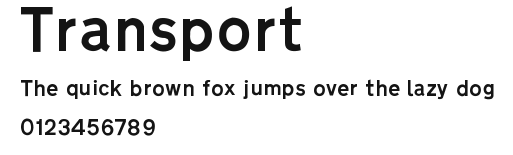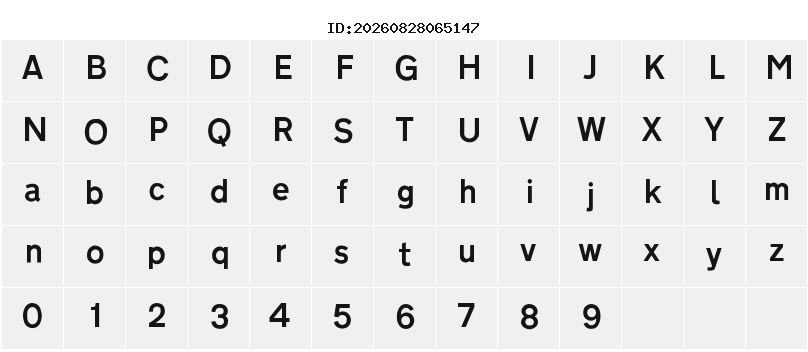
• Font Name: Transport
• Font ID: Transport Medium
• Full Font Name: Transport Medium
• Designer: High-Logic - Erwin Denissen 1999
• Manufacturer: High-Logic
About Transport.ttf
Transport.ttf is a modern, elegant sans-serif font designed for ultimate readability and visual harmony. Perfect for branding, headlines, web design, and print materials.